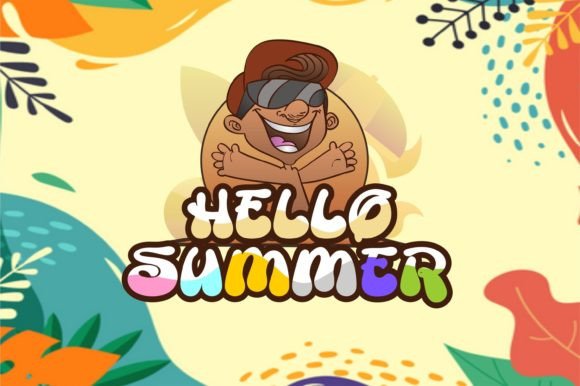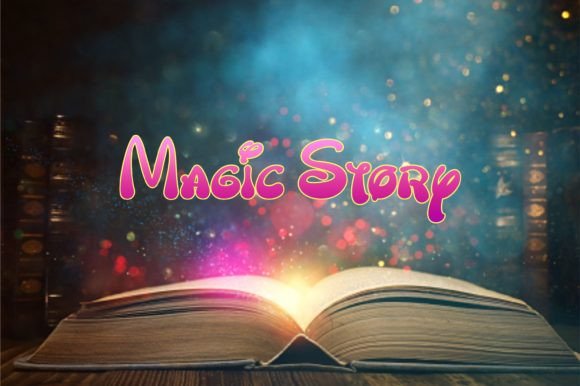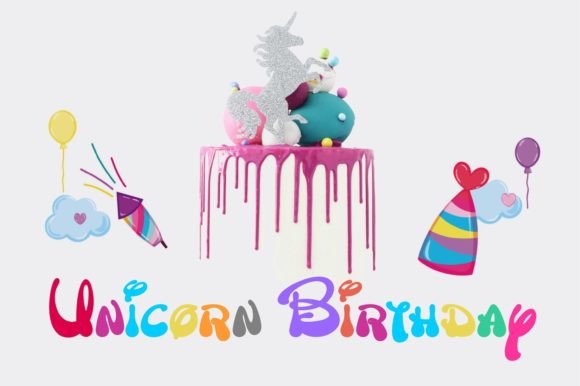
Wonder Day Font
Wonder Day is a retro handwritten font with a unique style. This font is inspired by the Walt Disney font.
Add it to your most creative ideas and notice how it makes them come alive!.